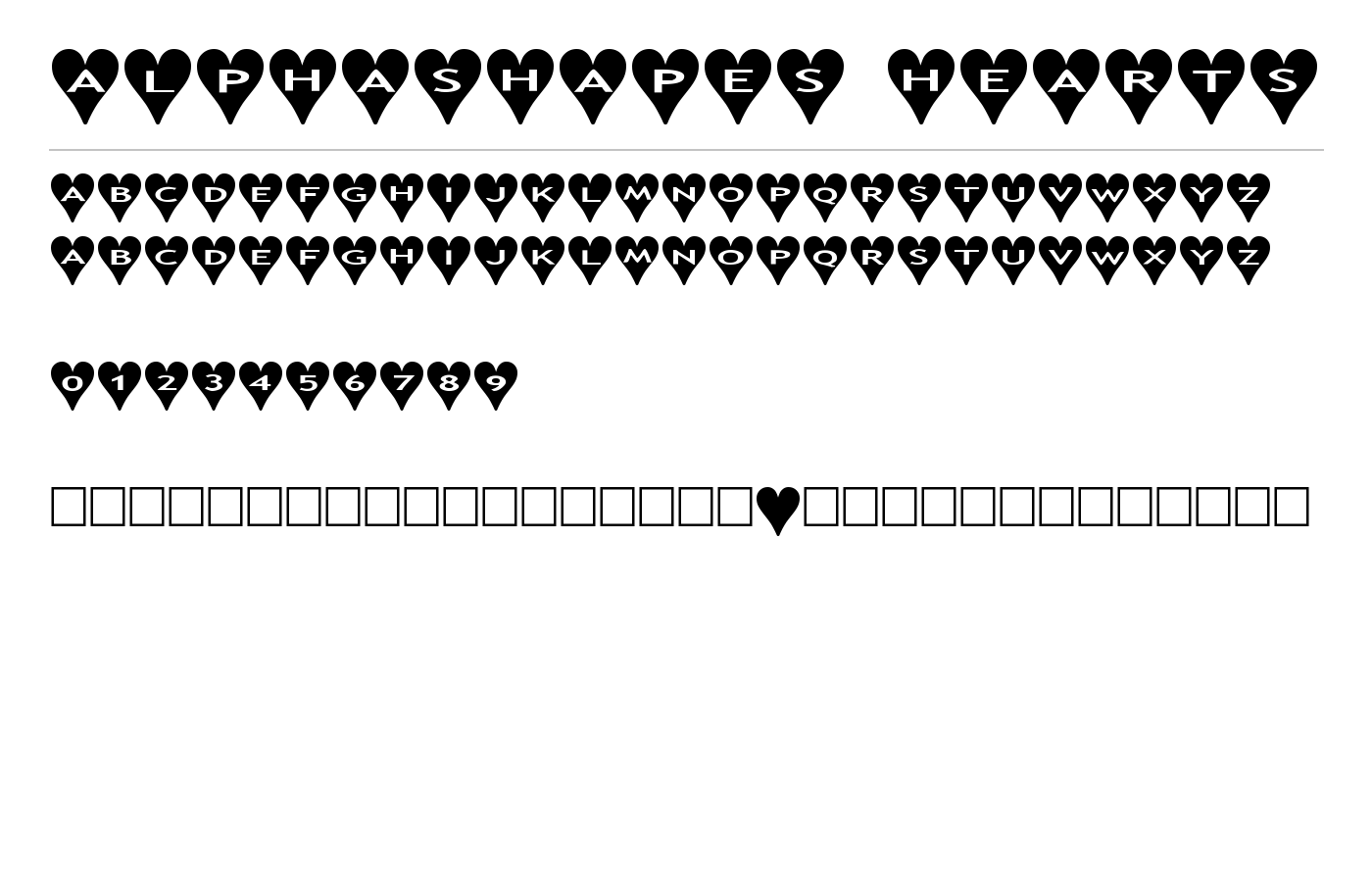
AlphaShapes Hearts is a playful and decorative sans serif font where each letter and number is uniquely enclosed within a bold, heart-shaped outline. This font features consistent weight and clean, geometric letterforms that blend charm and simplicity, making it ideal for fun, romantic, or whimsical designs. Perfect for greeting cards, invitations, logos, and creative packaging, it adds a distinctive, heartwarming touch that captures attention with its lively and friendly personality.
AlphaShapes hearts Font